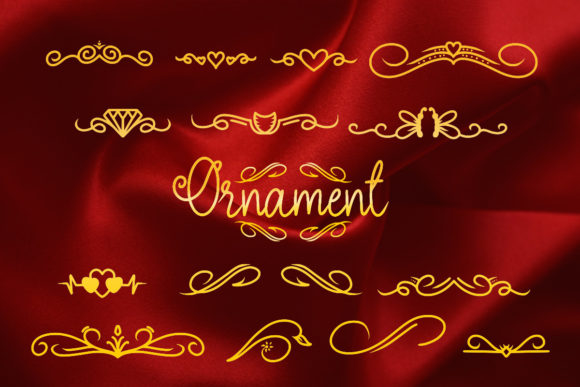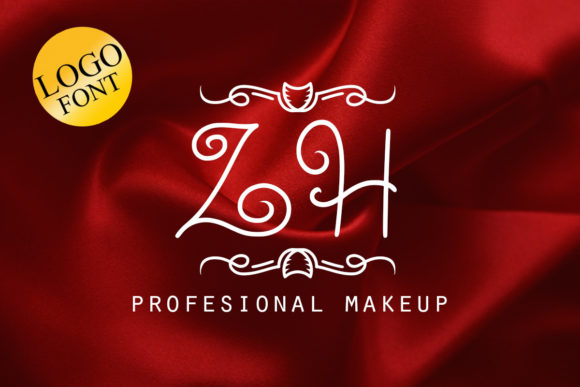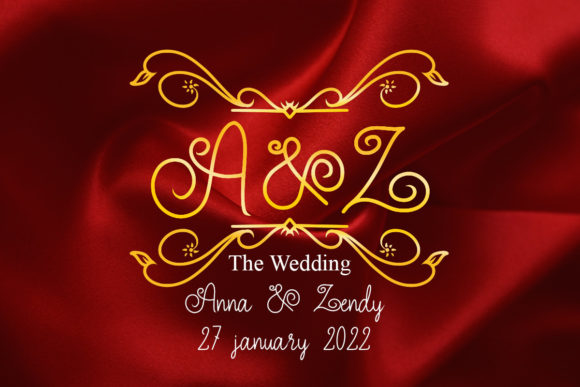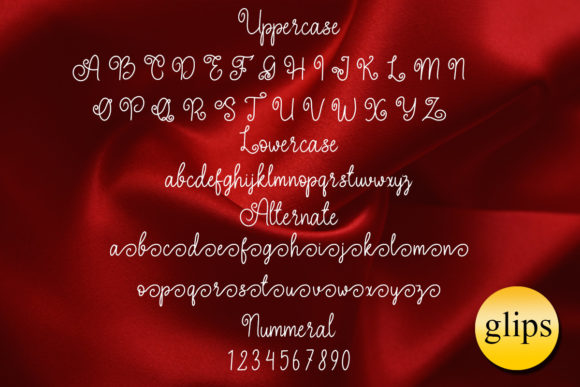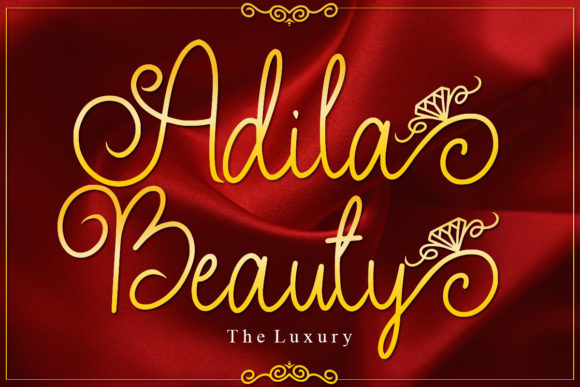
Introducing Adila Beauty Font: Elevate Your Designs with Elegance
Are you tired of using the same old fonts in your designs? Look no further! Adila Beauty Font is here to revolutionize the way you create stunning visual content. This classic decorative copperplate script with a modern twist is perfect for designers and crafters seeking to add a touch of sophistication to their work.
The Inspiration Behind Adila Beauty
As a designer, you know how important it is to have a unique and eye-catching font that sets your work apart. The creator of Adila Beauty Font had a clear vision: to craft a font that exudes elegance and refinement. With a passion for beautiful typography, they set out to create a display font that would be perfect for vintage logos, fashion labels, custom cards headers, badges, food packaging designs, and especially wedding fonts.
What Makes Adila Beauty Font Special?
Adila Beauty Font is not just another ordinary font. Its unique features make it an excellent choice for designers and crafters who want to create stunning visual content. Here are some of the key characteristics that set Adila Beauty Font apart:
- Classic Decorative Copperplate Script: Adila Beauty Font is inspired by traditional copperplate scripts, but with a modern twist. This blend of classic and contemporary styles makes it perfect for designs that require a touch of sophistication.
- Modern Twist: The font’s modern twist gives it a fresh and updated look, making it suitable for a wide range of design applications.
- PUA Encoded: Adila Beauty Font is PUA (Private Use Area) encoded, which means you can access all the glyphs and swashes with ease. This feature makes it easy to use and customize the font to suit your design needs.
- Display Font: Adila Beauty Font is designed as a display font, making it perfect for headlines, titles, and other prominent text elements in your designs.
Use Cases for Adila Beauty Font
Adila Beauty Font is a versatile font that can be used in a variety of design applications. Here are some examples of how you can use this beautiful font:
- Vintage Logos: Add a touch of elegance to your vintage logos with Adila Beauty Font. Its classic decorative copperplate script style makes it perfect for creating unique and eye-catching logos.
- Fashion Labels: Fashion labels require fonts that exude style and sophistication. Adila Beauty Font is an excellent choice for fashion designers who want to create stunning brand identities.
- Custom Cards Headers: Create beautiful custom cards with Adila Beauty Font. Its elegant style makes it perfect for use in greeting cards, invitations, and other paper crafts.
- Badges: Design stunning badges with Adila Beauty Font. Its modern twist and classic style make it an excellent choice for creating eye-catching badges.
- Food Packaging Designs: Add a touch of elegance to your food packaging designs with Adila Beauty Font. Its beautiful style makes it perfect for use in labels, packaging, and branding.
- Wedding Fonts: Adila Beauty Font is an excellent choice for wedding designs. Its elegant and sophisticated style makes it perfect for use in wedding invitations, stationery, and other wedding-related designs.
Why Choose Adila Beauty Font?
With so many fonts available, why choose Adila Beauty Font? Here are some reasons why designers and crafters love this font:
- Unique Style: Adila Beauty Font has a unique style that sets it apart from other fonts. Its blend of classic and modern styles makes it perfect for designers who want to create stunning visual content.
- Elegant and Sophisticated: Adila Beauty Font exudes elegance and sophistication, making it perfect for designs that require a touch of refinement.
- Easy to Use: Adila Beauty Font is PUA encoded, making it easy to use and customize. You can access all the glyphs and swashes with ease, giving you complete creative control.
| Font Name | Adila Beauty Font |
| Author | Al Mughni Studio3 |
Adila Beauty Font is a stunning display font that is perfect for designers and crafters seeking to add a touch of elegance to their work. Its unique blend of classic and modern styles, combined with its PUA encoding, makes it an excellent choice for a wide range of design applications. Whether you’re creating vintage logos, fashion labels, custom cards headers, badges, food packaging designs, or wedding fonts, Adila Beauty Font is the perfect choice. So why wait? Download Adila Beauty Font today and elevate your designs with elegance!